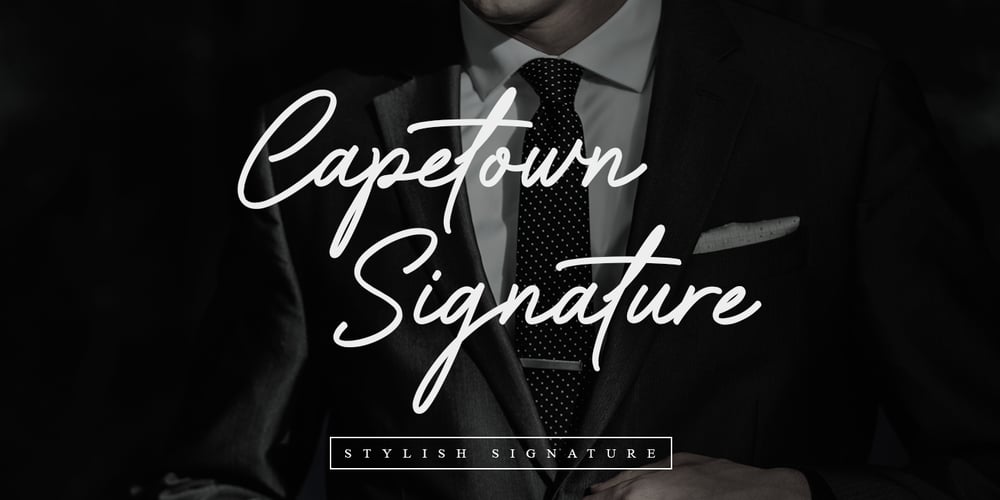
Capetown Signature Font Family was designed by Muhammad Mujibulloh and published by MJB Letters. Capetown Signature contains 2 styles and family package options. Capetown Signature is a modern and classic script font, perfect for signatures, branding, logos, photography, looks very clean and elegant, it will give the impression of luxury to your design.What’s include:– Ligature– Swash